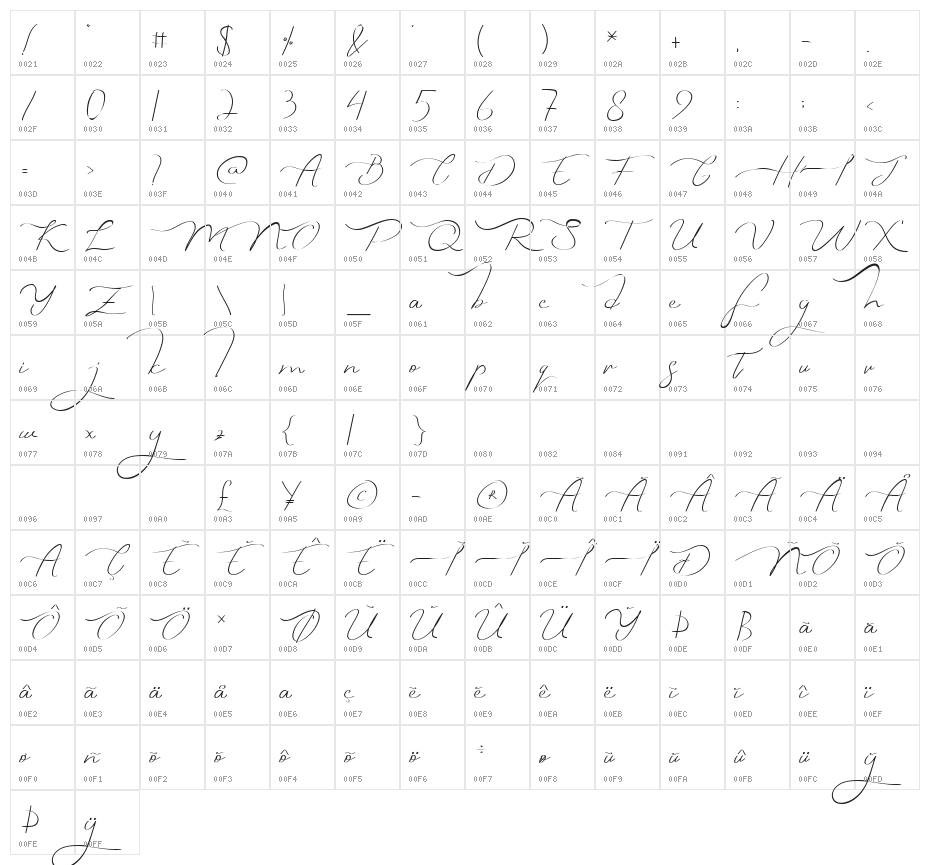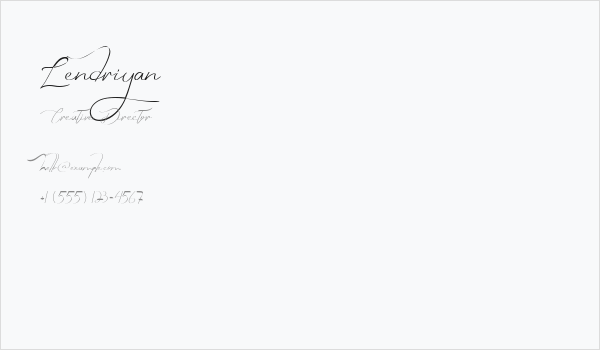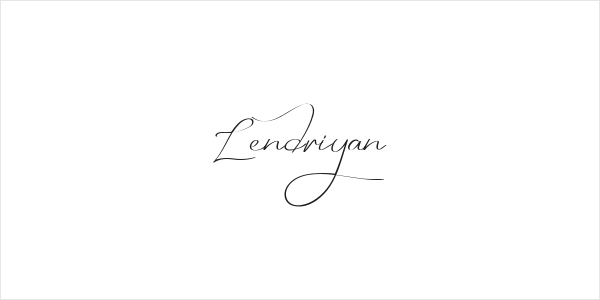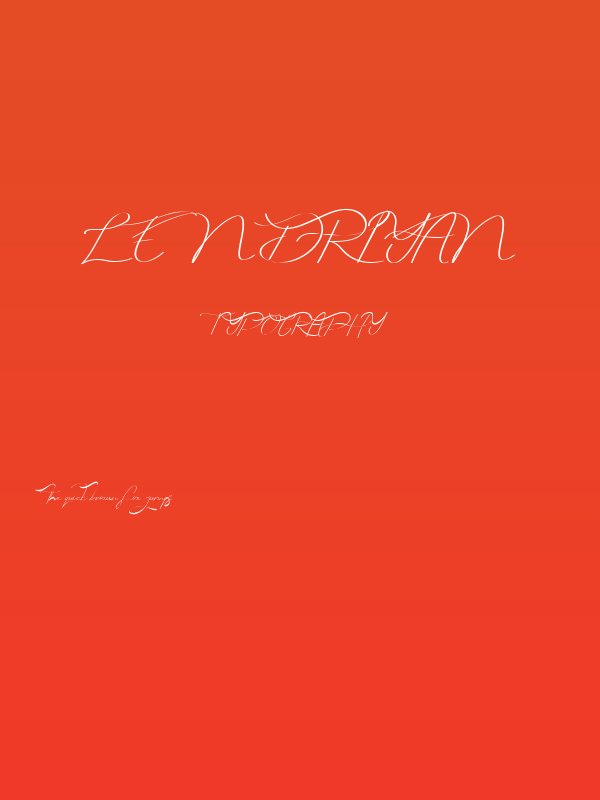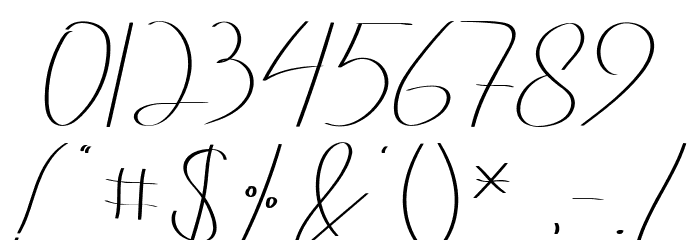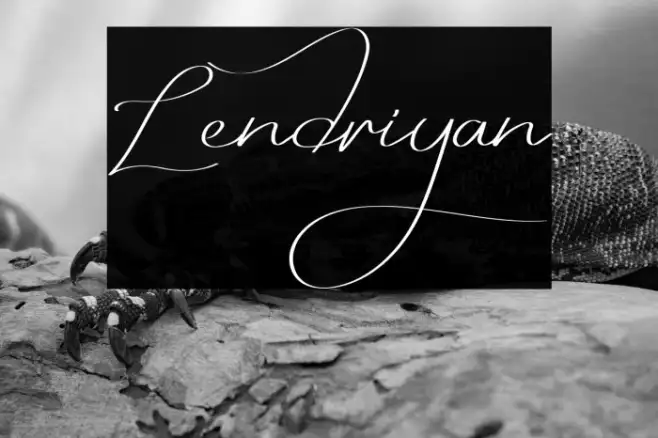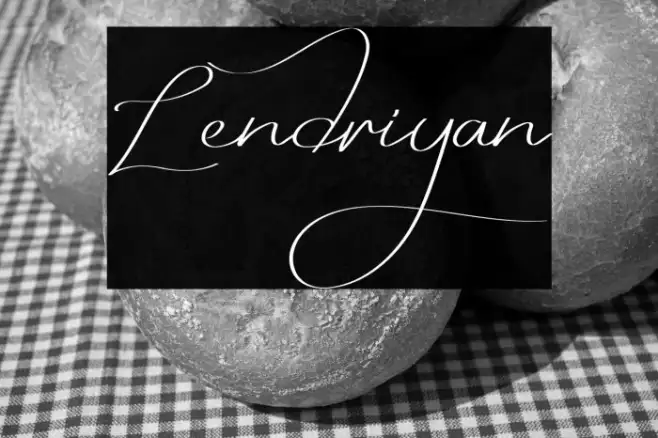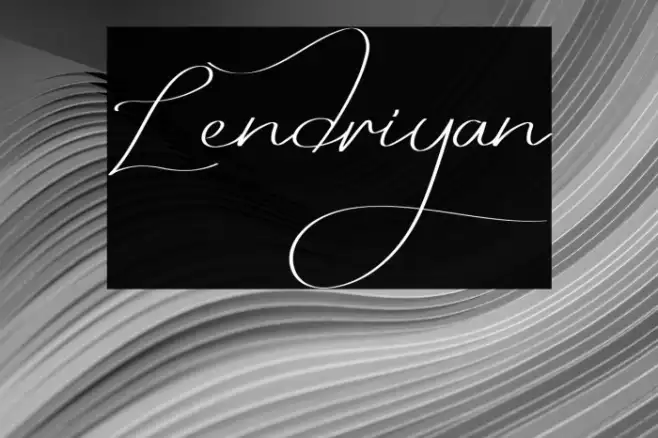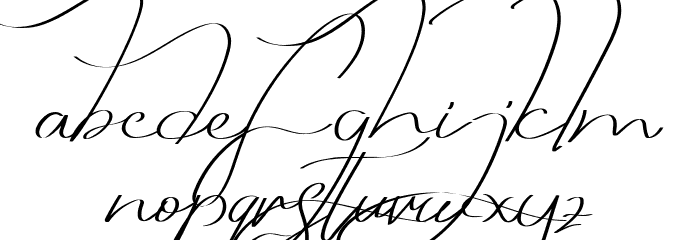
Lendriyan Font
Lendriyan Description
This elegant script font features a flowing, cursive style with delicate, thin strokes that convey a sense of sophistication and grace. The characters are intricately connected, creating a seamless and fluid appearance. The uppercase letters are tall and slightly slanted, while the lowercase letters maintain a consistent height with gentle curves. The numerals and special characters are designed to complement the overall aesthetic, maintaining the same graceful flow. This font is perfect for projects that require a touch of elegance and refinement.